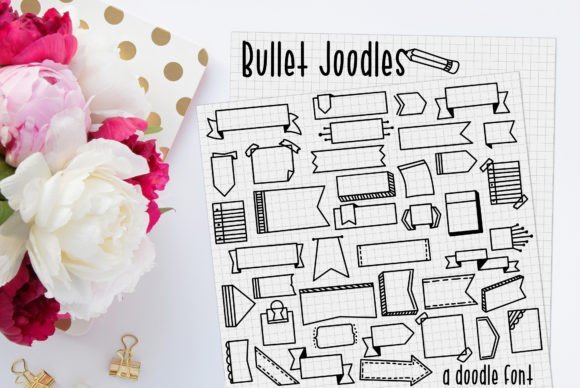
Introduction to Bullet Joodles Font
Meet Bullet Joodles, the ultimate doodle font for bullet journaling enthusiasts.
This charming font is packed with hand-drawn banners, arrows, and decorative elements to make organizing fun and creative Perfect for planners, to-do lists, and scrapbooking, Bullet Joodles helps you turn mundane tasks into a visual delight.
Why Choose Bullet Joodles Font?
Bullet Joodles Font offers exceptional quality and versatility, making it a valuable addition to your design toolkit. Whether you’re creating for personal projects or commercial use, Bullet Joodles Font delivers professional results.